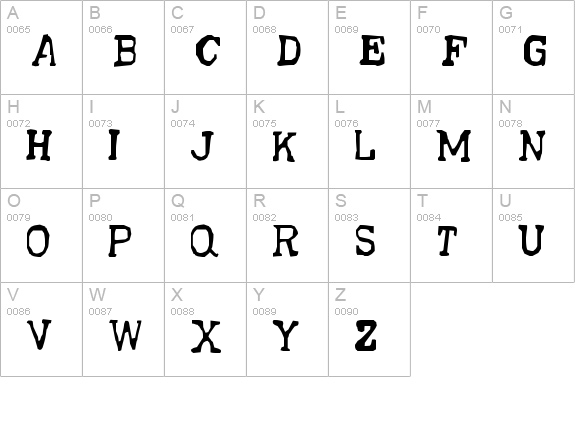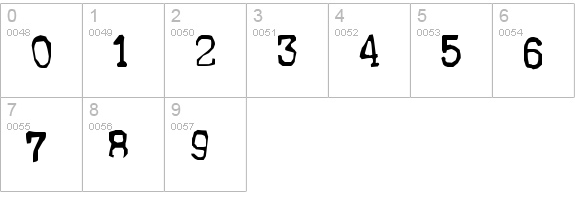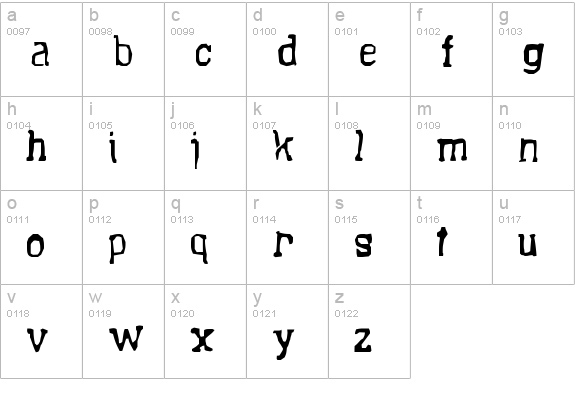
Sick Postman Font Details
Introducing Sick Postman font, a unique and eye-catching typeface that is sure to make a lasting impression. With its bold and edgy design, this font is perfect for adding a touch of personality to your creative projects. Sick Postman font features an array of quirky and irregular letterforms, giving it a distinct and unconventional look. Each character is carefully crafted to capture the essence of hand-drawn typography, making it the ideal choice for designs that require a playful and artistic feel. But that's not all - Sick Postman font is also free! Yes, you heard it right. This amazing font is freely available to download at FontsMarket.com. Whether you're a professional designer or just starting out, you can now access this versatile font without any cost. With Sick Postman font, the possibilities are endless. From logo designs to branding materials, posters to social media graphics, this font will add a touch of uniqueness and creativity to any project. Its versatility allows it to be used in a variety of contexts, making it a valuable asset in your font collection. So why wait? Download Sick Postman font for free at FontsMarket.com and unleash your creativity with this one-of-a-kind typeface. Stand out from the crowd and create designs that are truly captivating with the help of this remarkable font.